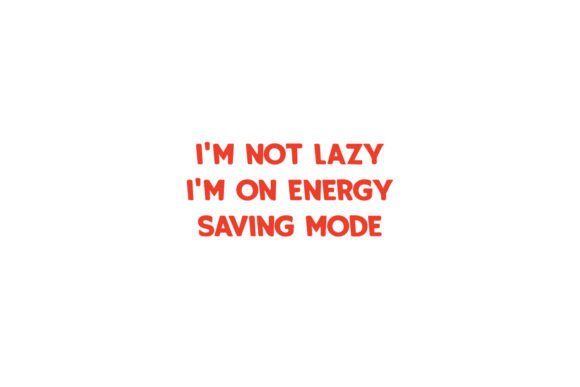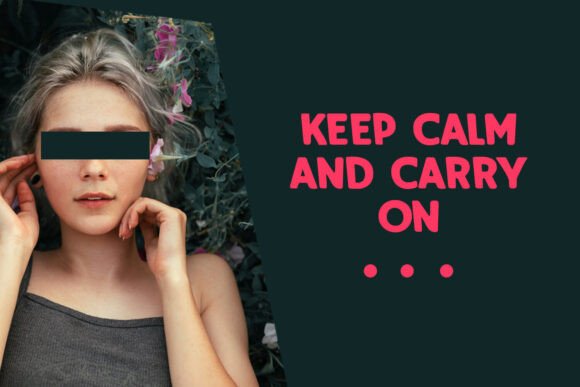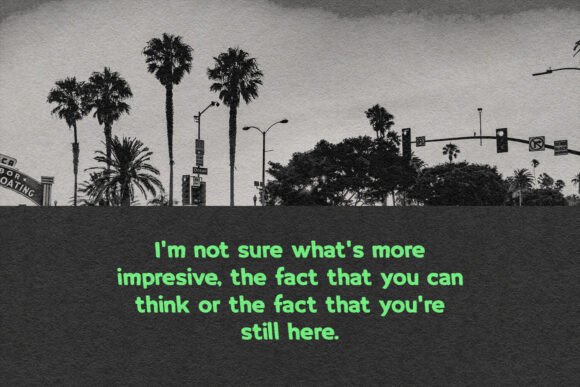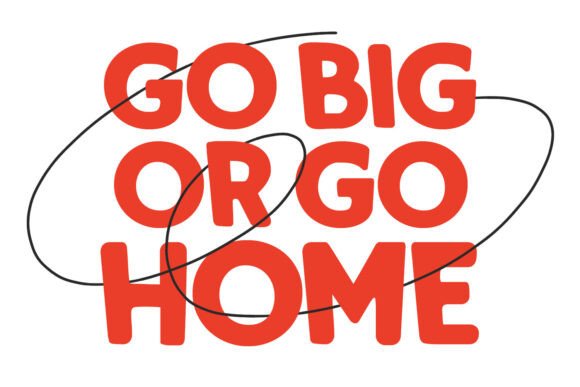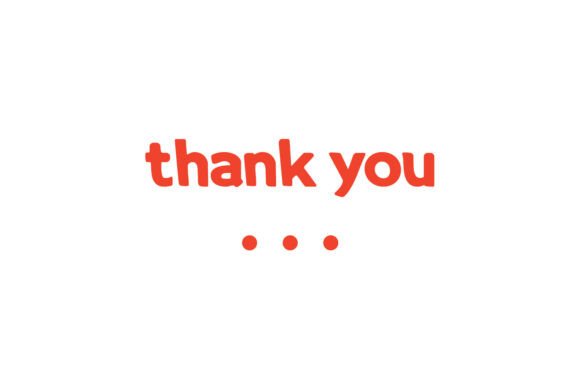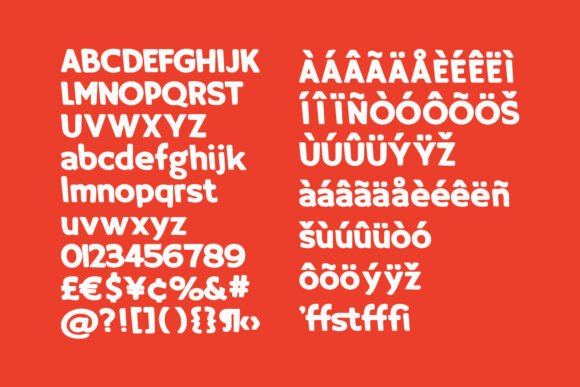
Unleash Your Creativity with Cagfils Leonard Font
Have you ever stared at a blank page, waiting for inspiration to strike? You know, that moment when the words just won’t come, but you know exactly what you want to create? For designers, that moment is all too familiar. But what if you had the perfect tool to spark your creativity and bring your ideas to life?
Enter Cagfils Leonard Font, a playful sans serif font that’s sure to capture attention and convey a friendly, approachable tone. Whether you’re working on a children’s project, branding, headlines, posters, or social media visuals, this font is the perfect addition to your design arsenal. Its rounded edges and slightly quirky geometry make it a valuable asset for any designer looking to add some personality to their work.
Cagfils Leonard Font Key Features
- Unique Characteristics: The font’s unique, hand-drawn style gives it a personal touch, making it perfect for creative projects that require a human touch.
Cagfils Leonard Font Review
I recently had the chance to work with Cagfils Leonard Font, and I must say it’s an interesting addition to the font family. ✨ One thing I like about this font is its unique style, which is a mix of modern and vintage elements. It’s perfect for projects that require a touch of sophistication and elegance.
Here are some of the key features that I found useful:
- ✨ Unique blend of modern and vintage elements
- ✨ Suitable for various design projects, including headings and body text
- ✨ Supports a wide range of languages, making it a great choice for international projects
However, I did encounter some limitations while working with this font. ⚠️ One of the main issues is its limited character set, which can make it difficult to use in certain situations. Additionally, the font may not be as readable on smaller screens or in certain fonts sizes.
Overall, I think Cagfils Leonard Font is a great addition to any designer’s toolkit. While it has its limitations, its unique style and versatility make it a great choice for a wide range of design projects. With a little creativity and planning, you can overcome its limitations and achieve some amazing results.
To get the most out of Cagfils Leonard Font, try using it for headings and titles in your designs. The font’s unique style and elegance make it perfect for adding a touch of sophistication to your work. Experiment with different font sizes and combinations to create a visually appealing effect.
For a more dramatic effect, try using Cagfils Leonard Font in conjunction with a bold or italic font. This will create a striking contrast and add depth to your design.
Cagfils Leonard Font is perfect for:
Business cards and brochures
Magazine and newspaper headlines
Book covers and titles